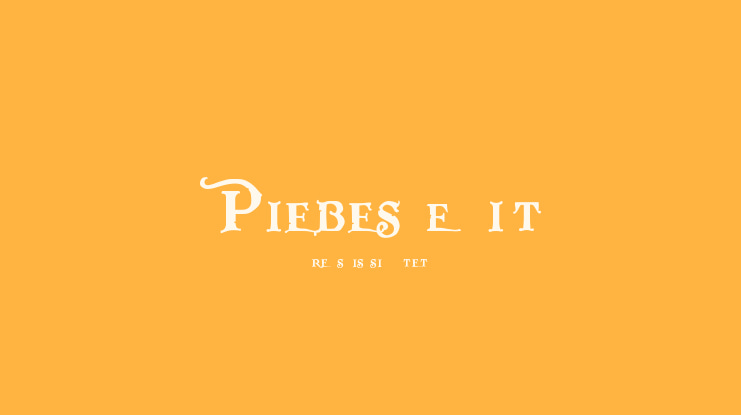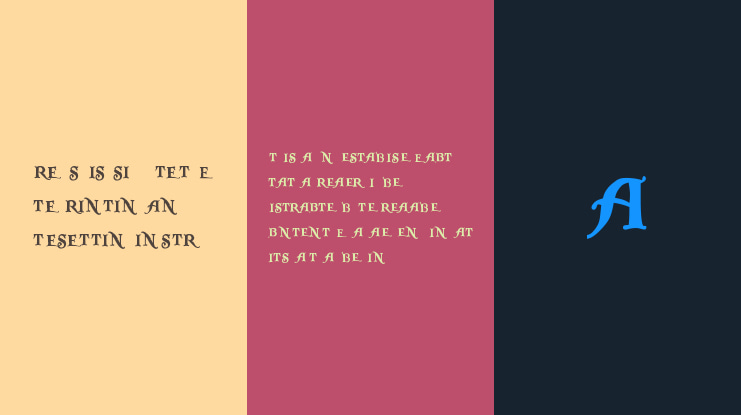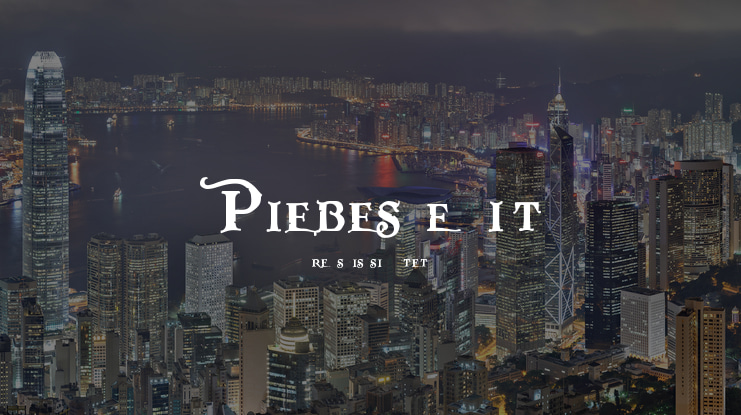
Pieces of Eight Font Family
© 2006, 2010 Steve Fererra All Rights Reserved. Peices of Eight is inspired by the characters on the coming attraction poster "Pirates of the Caribbean". All official material on Pirates of the Caribbean is a copyright of the Walt Disney Company. The font is provided as FREEWARE for your enjoyment, and is not be used for any commercial or publication purpose. Any trademarks, logos and graphic elements contained within this font are the property of their respective owners.